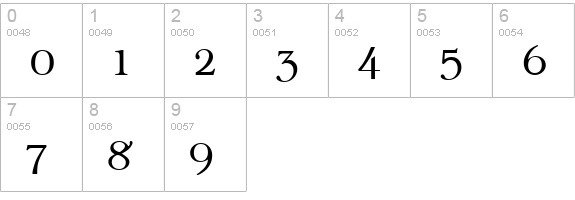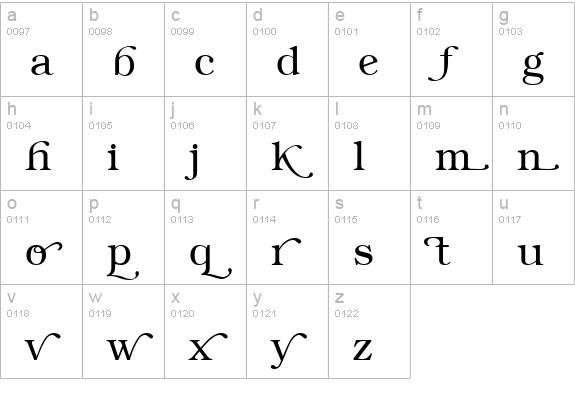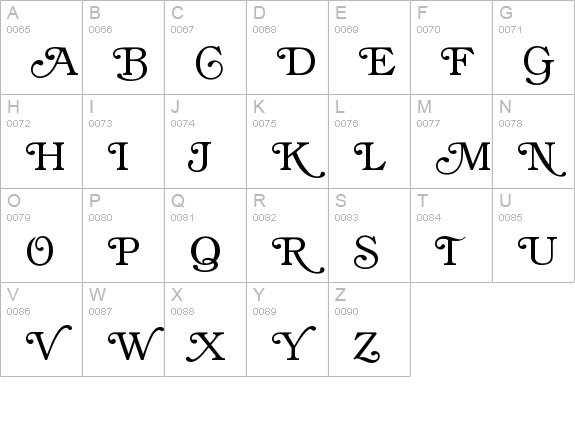
BookwomanSwash LightSH Font Details
BookwomanSwash LightSH font is a charming and elegant typeface that exudes sophistication and style. Its delicate swashes and intricate details give it a unique and timeless appeal, making it perfect for various design projects, such as invitations, greeting cards, and branding materials. What makes BookwomanSwash LightSH font even more appealing is that it is available for free download at FontsMarket.com. This means that you can easily access this beautiful font and use it in your creative endeavors without any cost. Embrace the beauty and versatility of BookwomanSwash LightSH font today and elevate your designs to a whole new level.